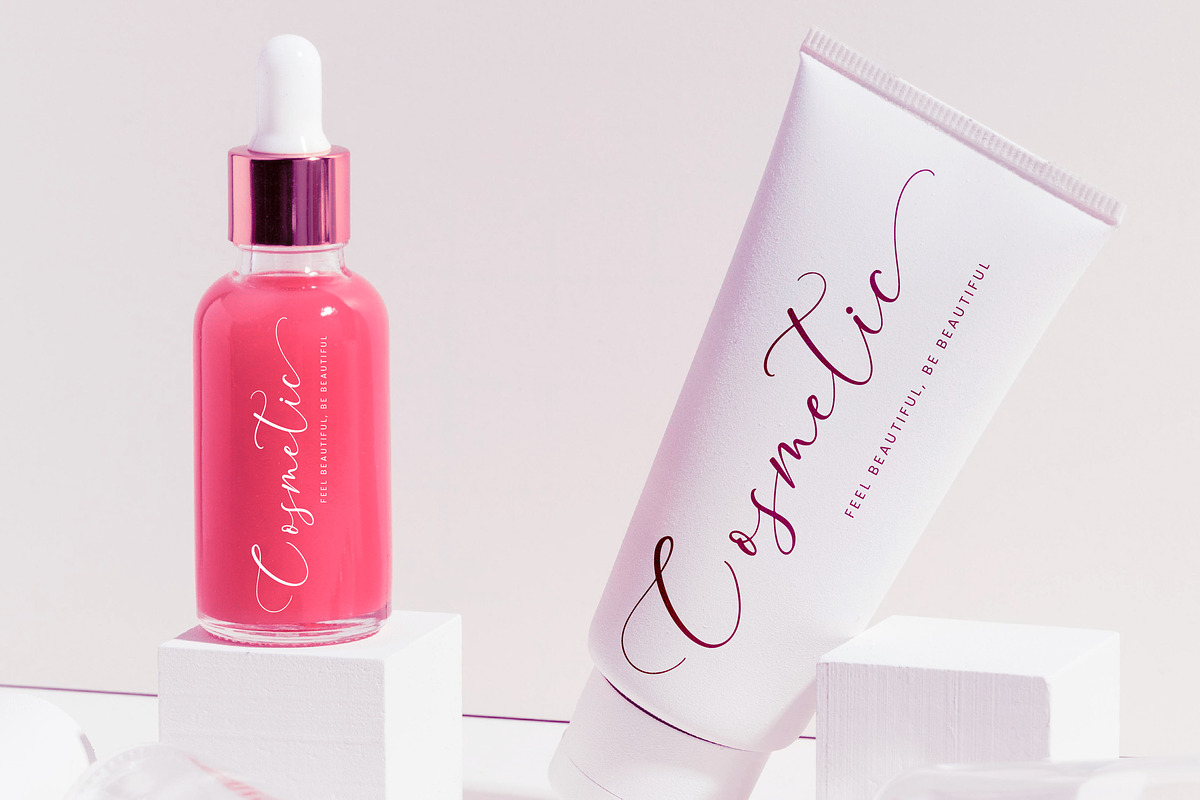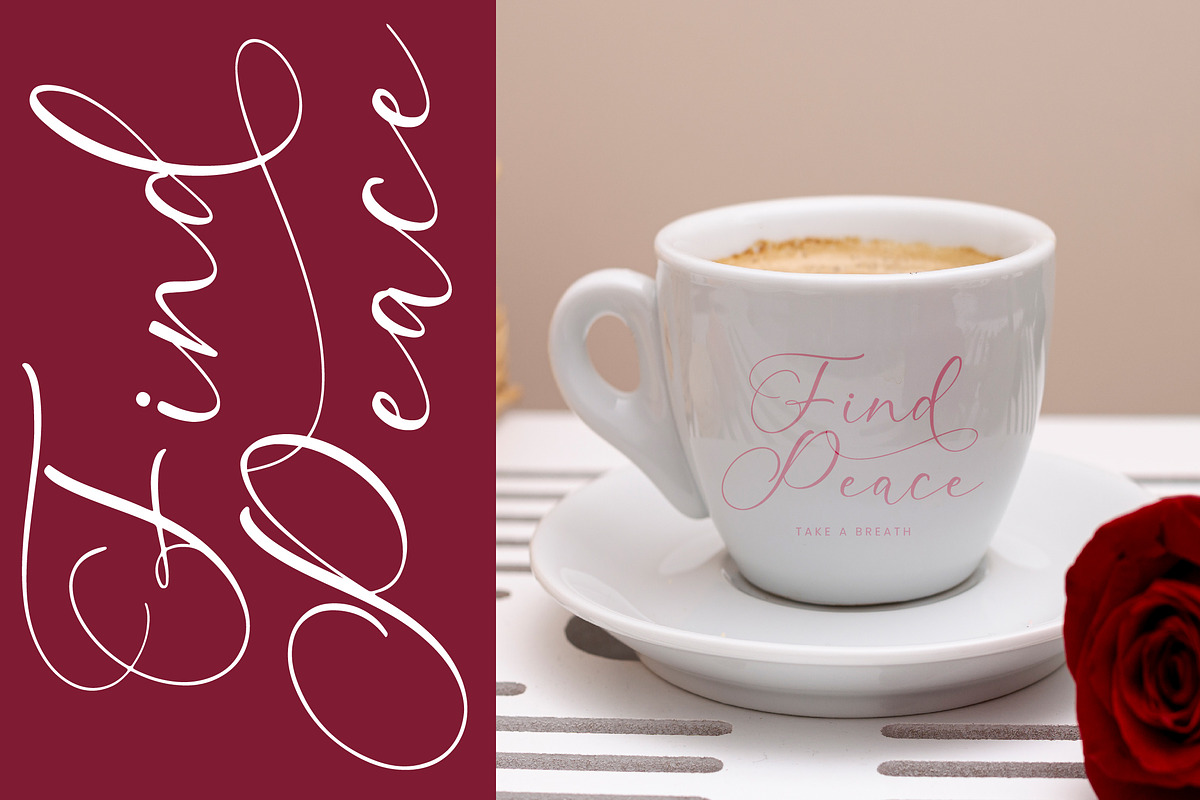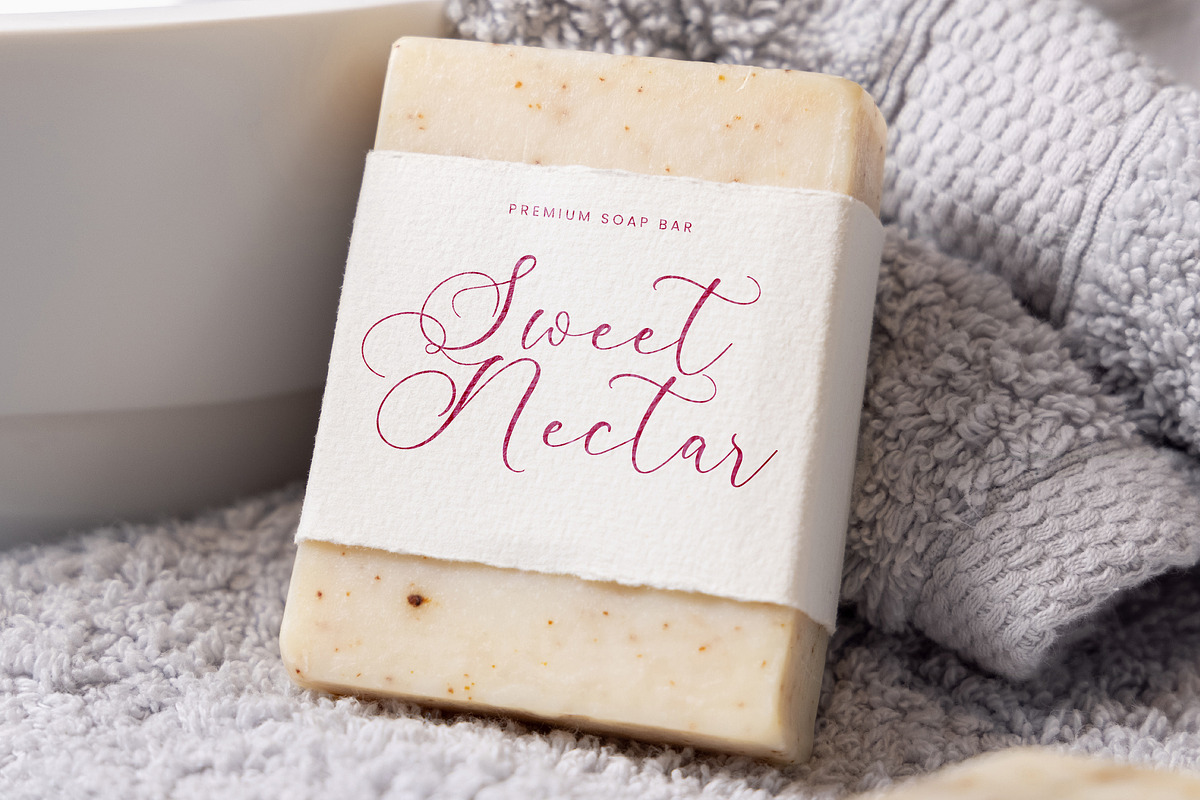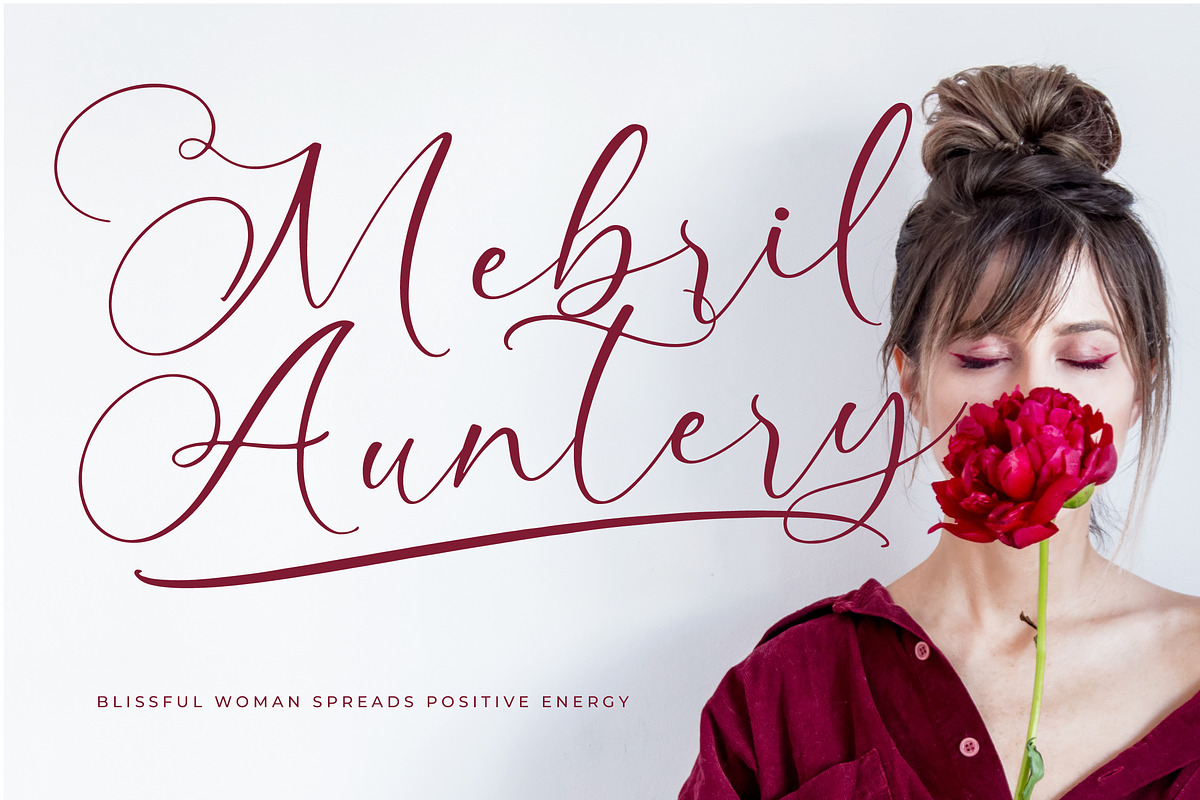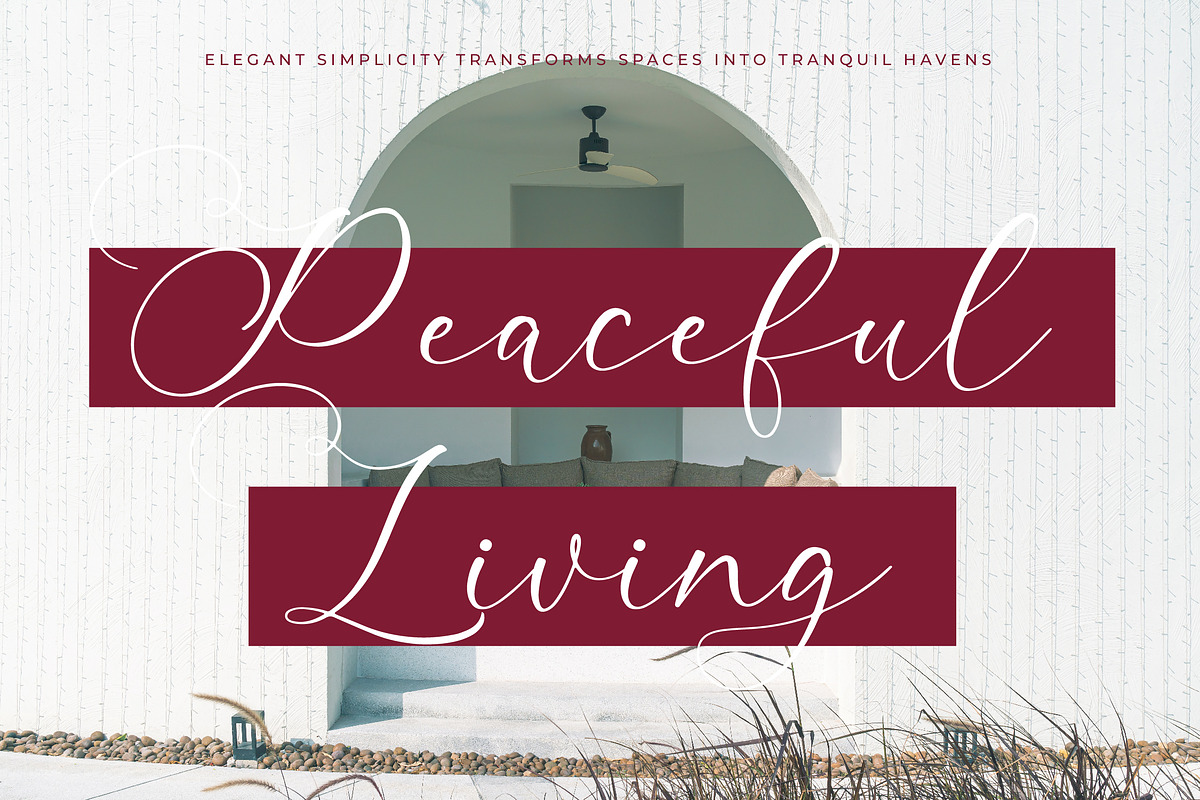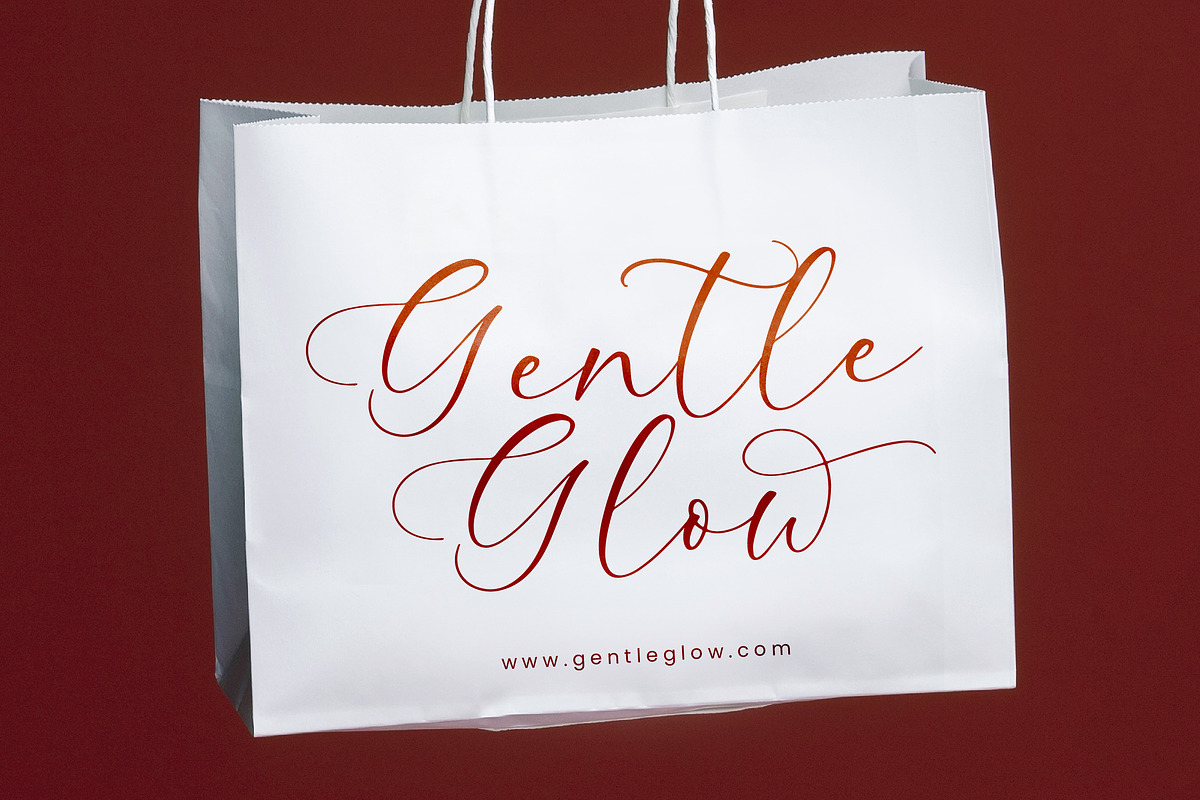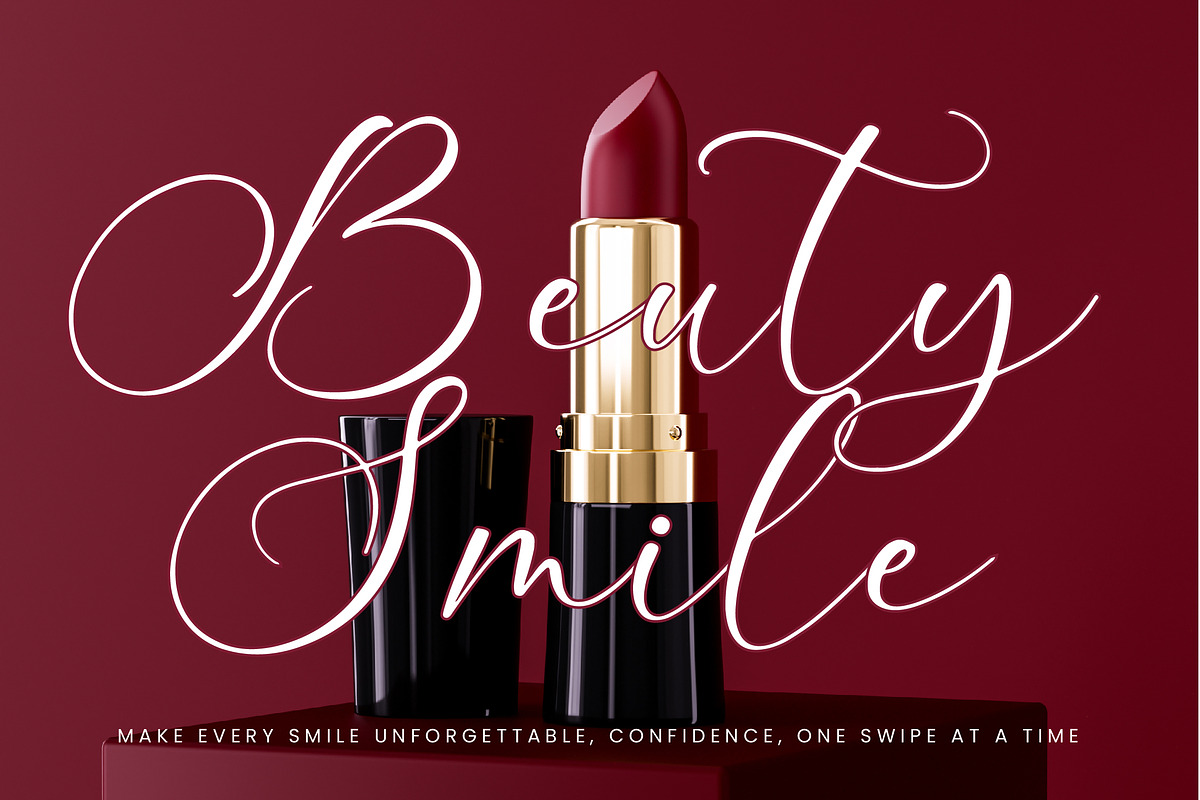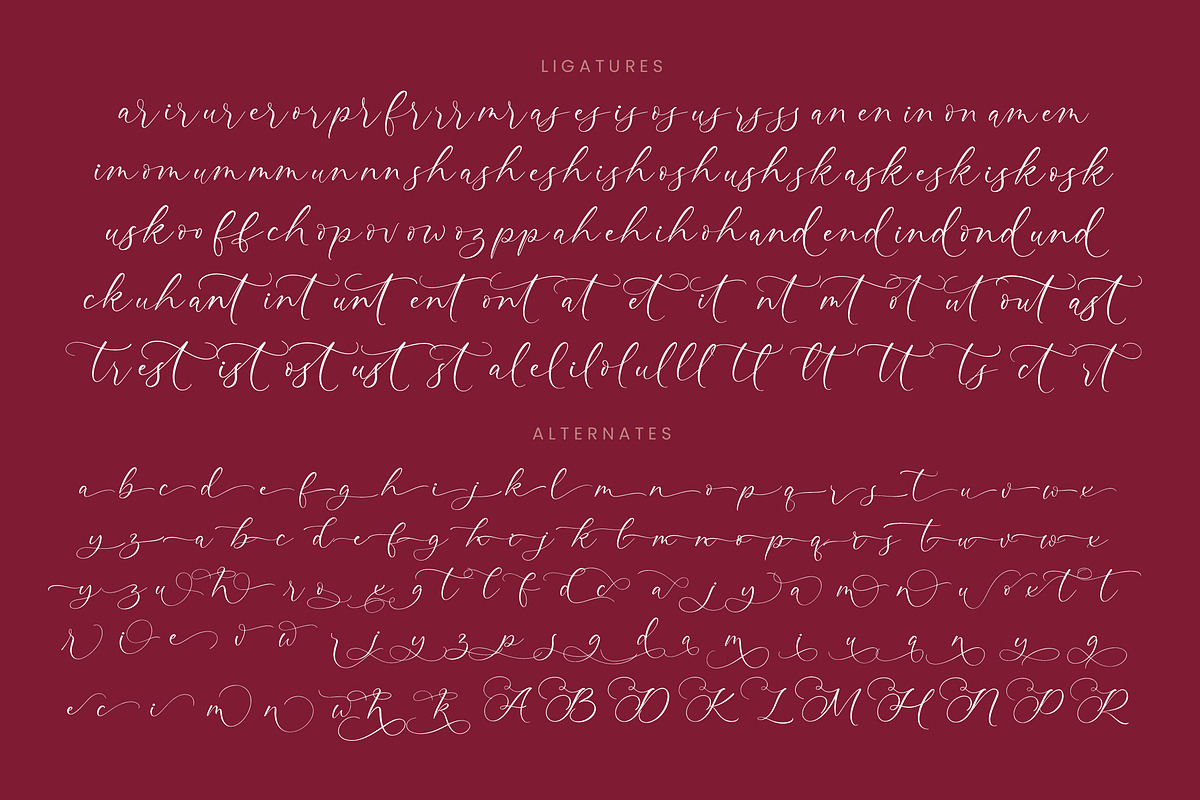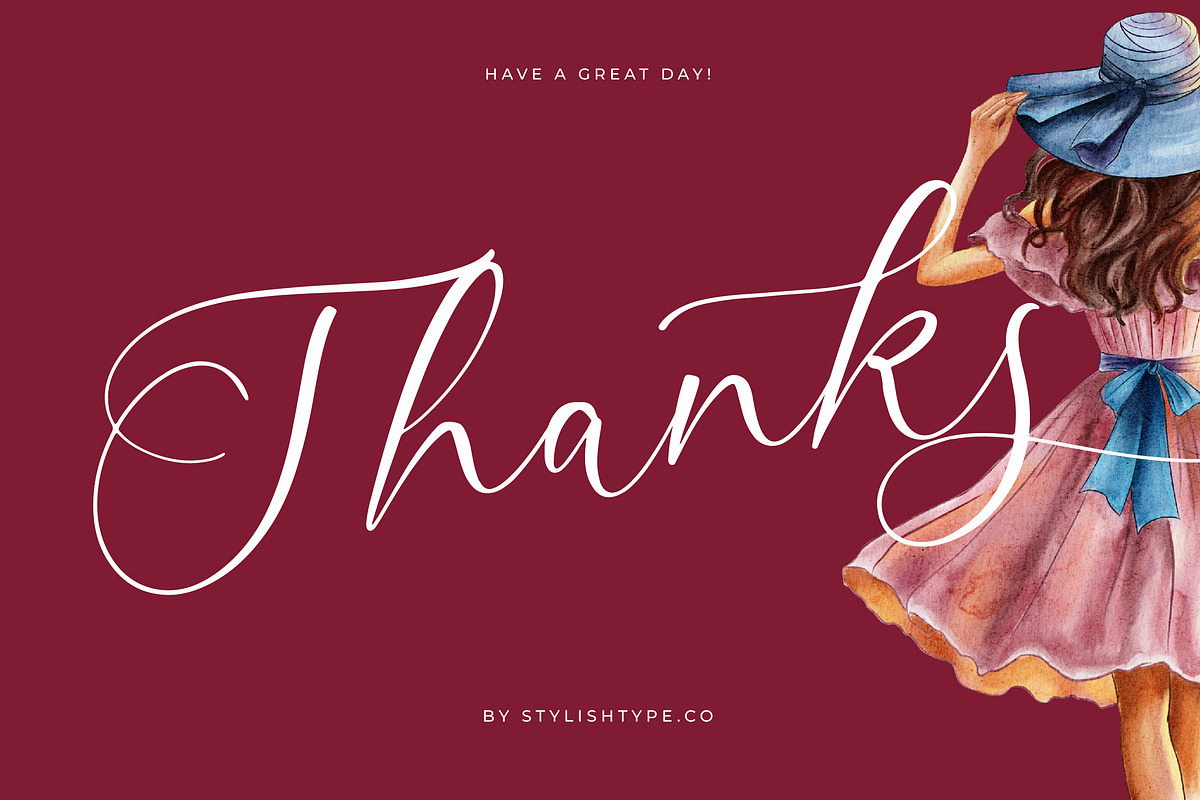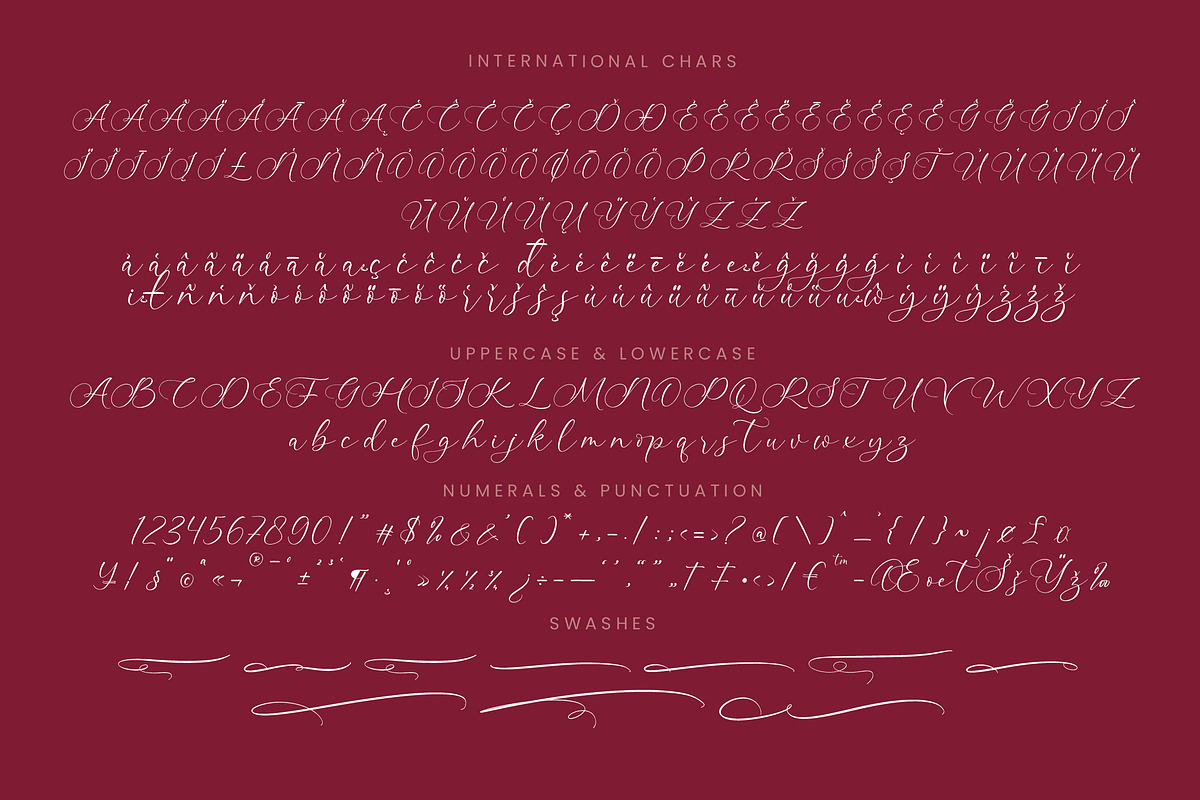
Aurating Martey Stylish Calligraphy
Aurating Martey - Stylish Calligraphy Font , from Stylishtype.Co , Suitable for any projects such as: logos, branding projects, homeware designs, product packaging, mugs, quotes, posters, shopping bags, t-shirts, book covers, name card, invitation cards, greeting cards, label, photography, watermark, special events, and all your other luxury and beautiful projects that need a Luxury Script taste.
- 98 Ligature 83 Alternates & 11 Swashes